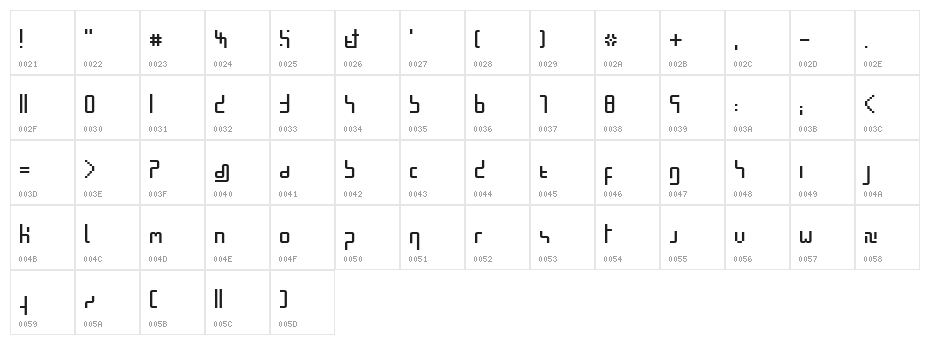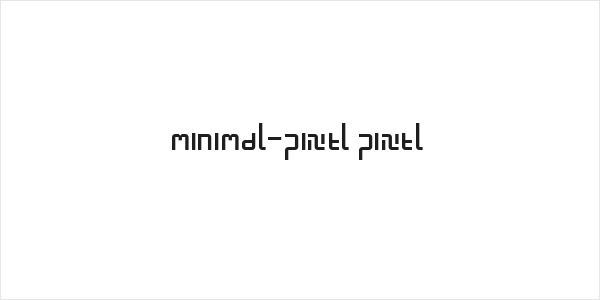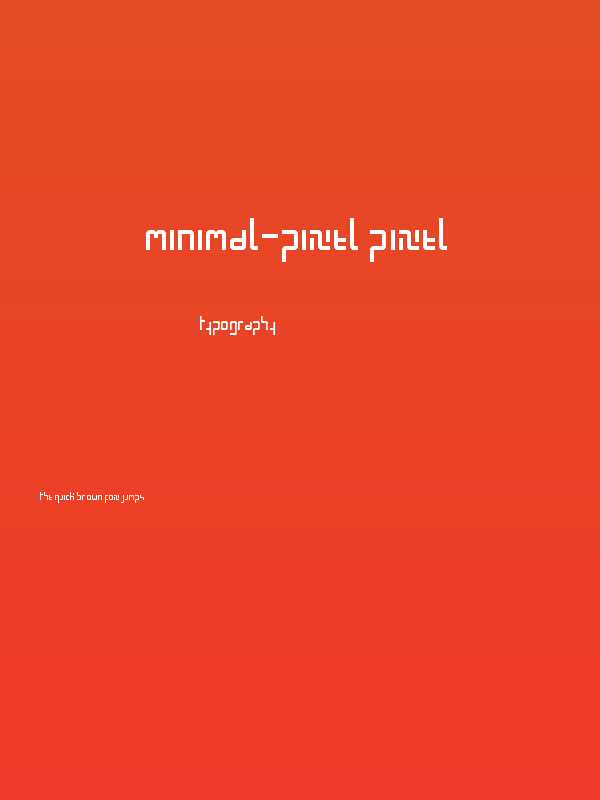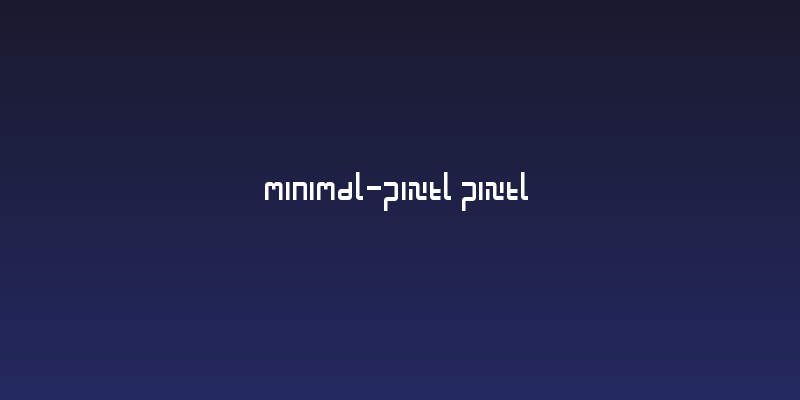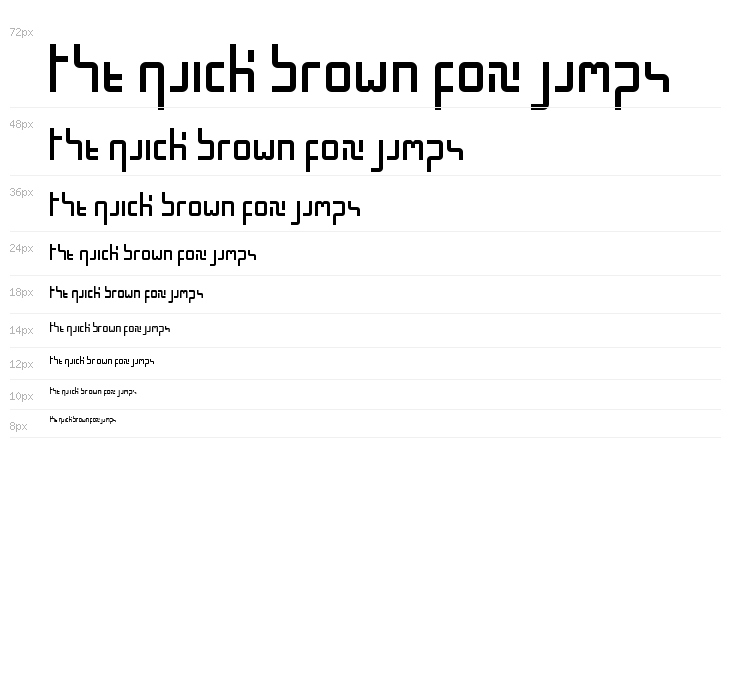
minimal-pixel pixel Font
minimal-pixel pixel Description
This font features a minimalist, pixelated design that evokes a retro, digital aesthetic. Each character is constructed with a grid-like precision, giving it a blocky and geometric appearance. The uniformity in height and width across the characters creates a cohesive and structured look. The font's simplicity and clarity make it highly legible, even at smaller sizes. Its unique style is reminiscent of early computer graphics and video game typography, making it ideal for projects that aim to capture a nostalgic or tech-oriented feel.
| Use Case | Logos, Headlines, Digital Art |
| Proposed Projects | Ideal for video game design, tech-themed branding, digital art projects, and retro-inspired graphics. |